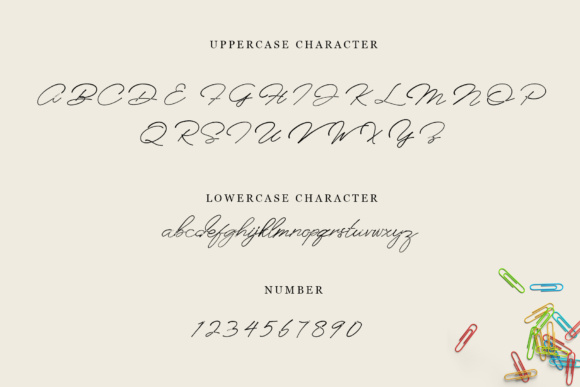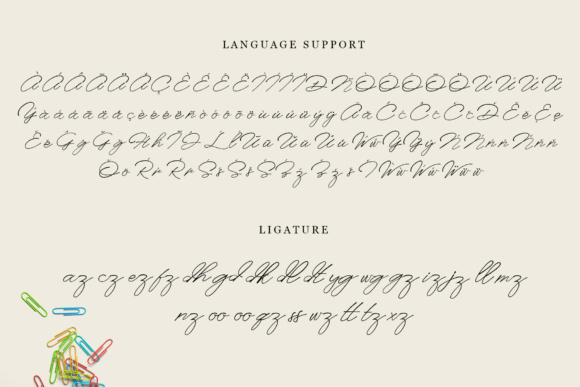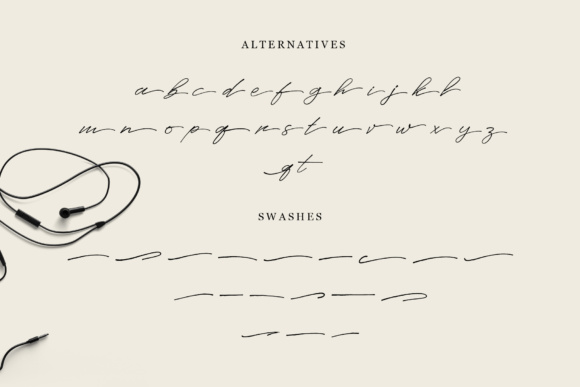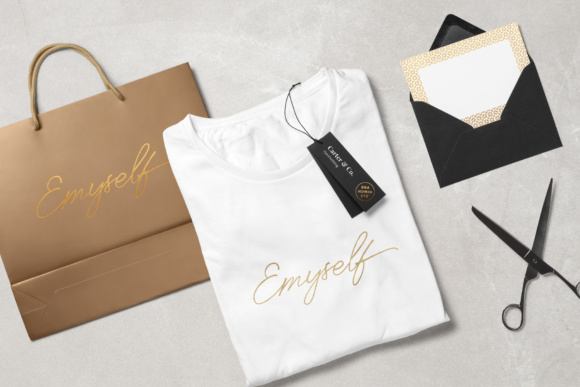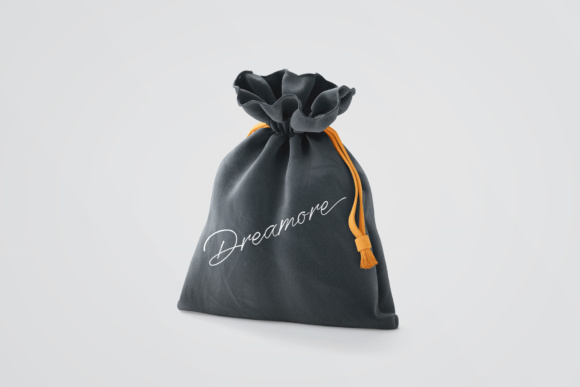
The Perfect Blend of Style and Legibility: Anaheim Script Font
You’ve spent hours perfecting the design, pouring your heart and soul into every detail. And then, it happens – the final touch, the one that brings everything together, is the font. It’s the crowning glory of your creation, and it needs to be just right. This is where the Anaheim Script Font comes in, a lovely script font that’s sure to elevate your design to new heights.
With its elegant, flowing lines and subtle flair, the Anaheim Script Font is perfect for any project where you want to add a touch of sophistication and whimsy. Whether you’re designing a wedding invitation, a logo, or a piece of editorial content, this font is sure to bring a smile to your face and a sense of joy to your audience.
Anaheim Script Font Key Features
- Font Type: Script Font, ideal for creating elegant and sophisticated designs.
- Unique Characteristics: Features a flowing, cursive design with subtle flourishes, adding a touch of sophistication to any text.
Design Review: Anaheim Script Font
Overall, I think the Anaheim Script Font is a beautiful addition to any designer’s toolkit ✨. Its elegant, handwritten feel makes it perfect for creating invitations, wedding stationery, and other special occasions where you want to add a touch of sophistication.
- Fluid connections between letters and words: The script font has a flowing feel that makes it easy to read and pleasant to look at ✨.
- Wide range of weights: From Light to Black, the font offers a range of weights that can be used to create contrast and emphasis in your designs ✨.
- Supports multiple languages: Anaheim Script Font supports a wide range of languages, making it a great choice for international projects ✨.
However, there are a few limitations to be aware of ⚠️:
- May not be suitable for body text: Due to its script nature, the font may not be the best choice for large blocks of body text, as it can be difficult to read in smaller sizes ⚠️.
- Limited availability in some font styles: While the font offers a range of weights, some styles (such as Italic and Bold Italic) may not be available in all weights ⚠️.
Overall, I think the Anaheim Script Font is a great choice for designers who want to add a touch of elegance to their projects. While it may have some limitations, its beautiful, flowing feel makes it a great addition to any designer’s toolkit.
For a more elegant look, use a light background and a dark text color.
Use the font to create beautiful headings and titles in your designs.
Use the font to create eye-catching titles and headings in your presentations and documents.
For the most out of Anaheim Script Font, use it sparingly to create a sense of elegance and sophistication.
Pair the font with a clean and simple background to let the text take center stage.
Experiment with different font sizes and colors to create a unique and personalized look.
Anaheim Script Font is perfect for:
Restaurant menus and signage
Brand logos and typography
Any design project where a touch of elegance and sophistication is needed